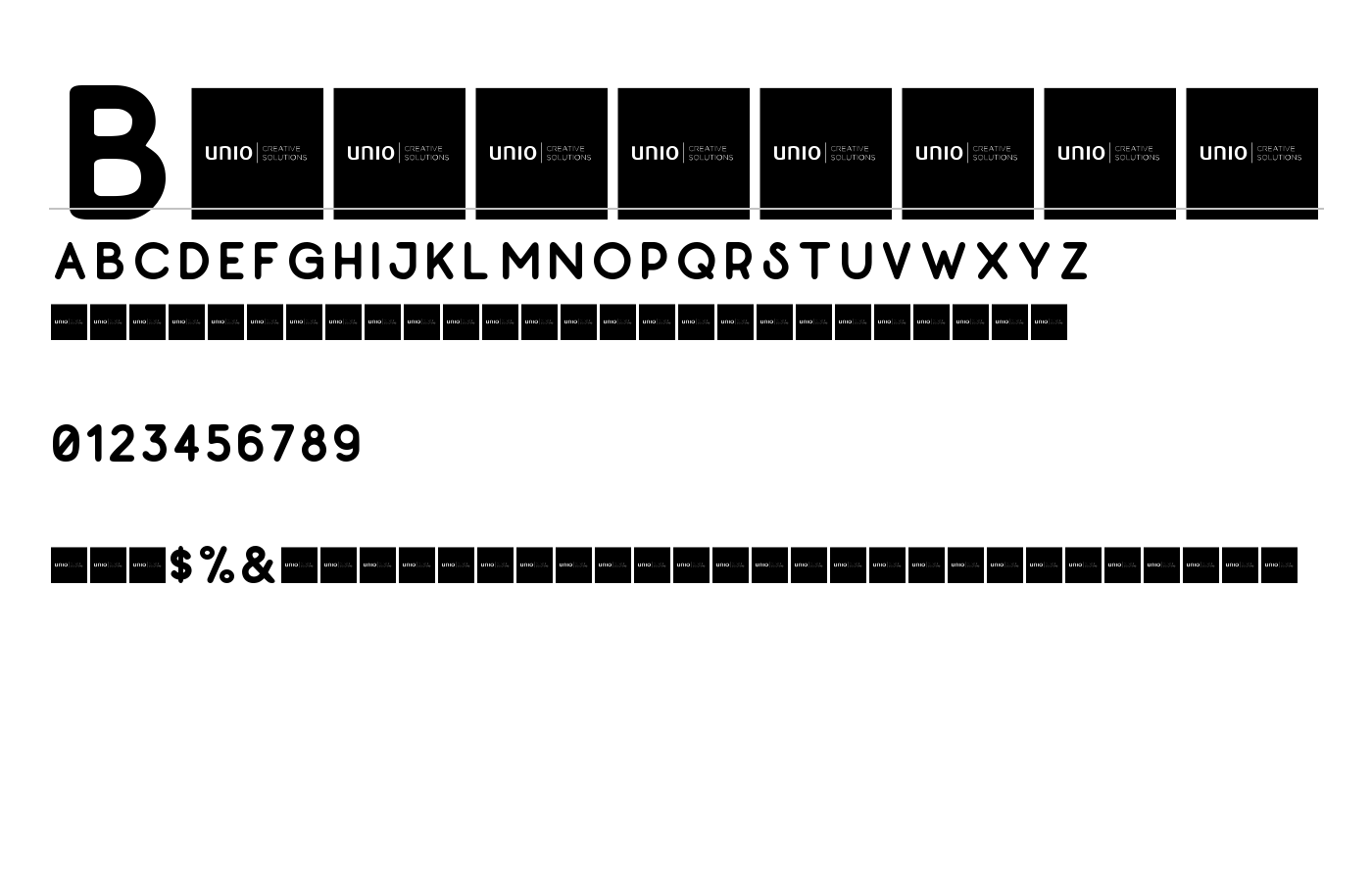
Belvedere is a geometric sans serif font characterized by its clean, rounded letterforms and uniform stroke weight, giving it a friendly and approachable appearance. Its medium width and high x-height ensure excellent readability, while distinctive details like single-story ‘a’ and ‘g’ add a modern, playful touch. Ideal for contemporary branding, headlines, and digital use, Belvedere conveys simplicity and clarity with a subtle warmth.
Belvedere Font
About Belvedere Font
| Font family | Belvedere Font |
| Designer | Nicola Manzari |